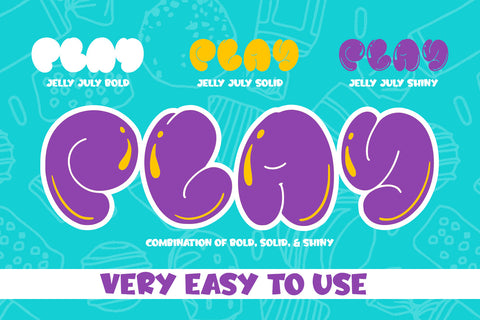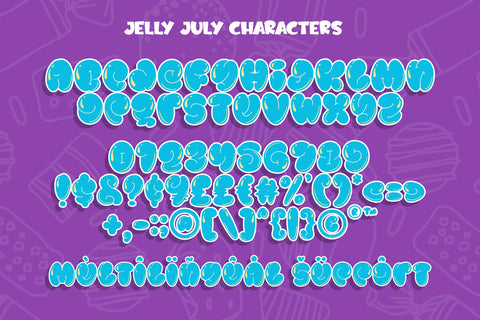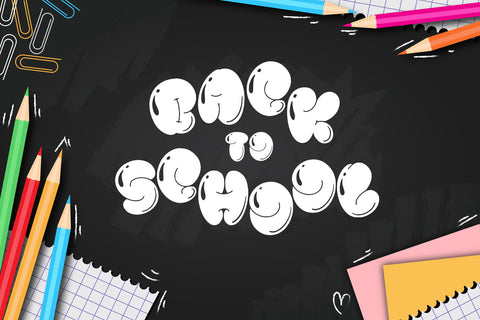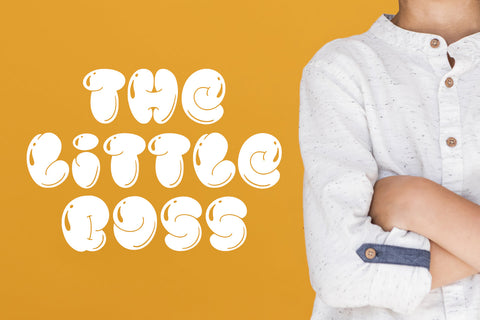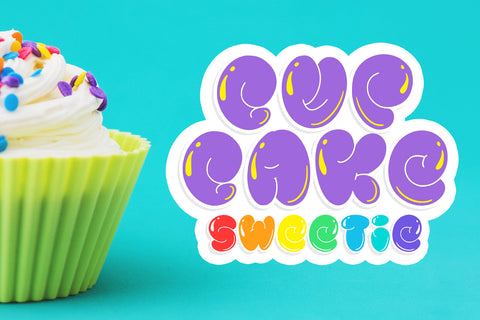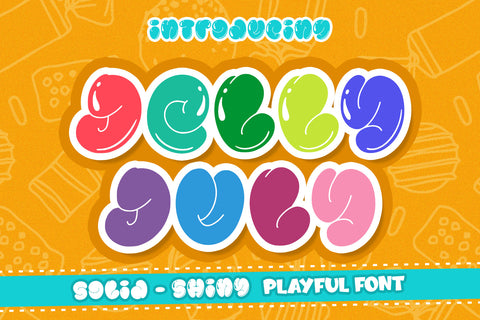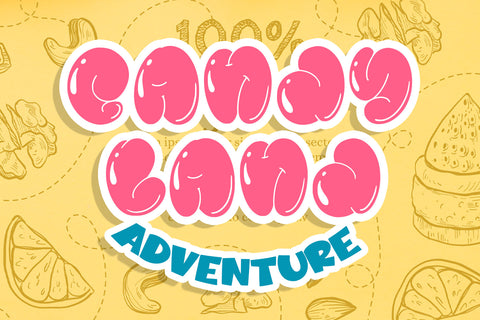
Jelly July
introducing
JELLY JULY
-playful font trio-
This font is designed for crafters
It is great for branding, packaging, quotes, t-shirt design, card, banners, and anything of craft project.